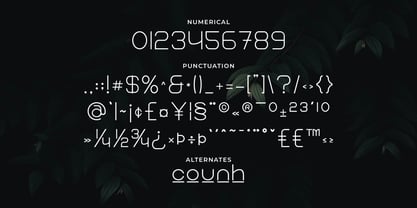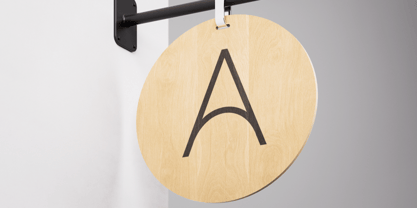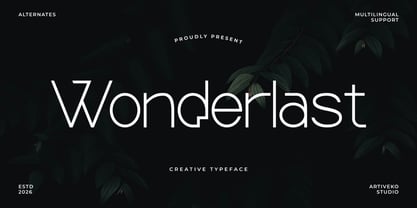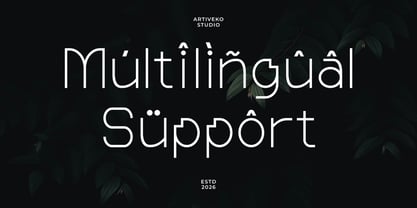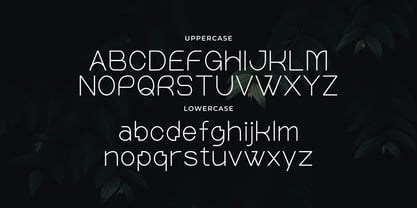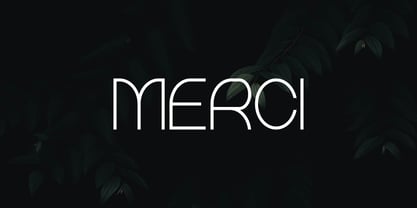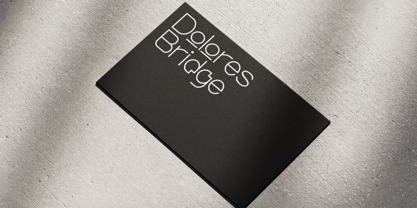
Wonderlast
La familia tipográfica Wonderlast fue diseñada por Iwan Alwan y publicada por Artiveko. Wonderlast contiene 2 estilos y opciones de paquete familiar. Más información sobre esta familia
Wonderlast is a striking display sans serif typeface crafted to inspire bold ideas and create unforgettable visual experiences. Featuring expressive letterforms, modern proportions, and a distinctive contemporary style, Wonderlast empowers designers to produce typography that feels fresh, energetic, and full of personality. Ideal for branding, logos, posters, packaging, merchandise, social media graphics, editorial layouts, and creative campaigns, Wonderlast offers a strong visual presence while ensuring excellent readability in display sizes. Its versatile character makes it perfect for lifestyle brands, creative agencies, fashion labels, cafés, music events, and modern digital content. Whether you're designing a memorable logo or eye-catching promotional materials, Wonderlast infuses originality, confidence, and creative energy into every project. Wonderlast isn't just a font—it's a bold creative companion for brands aiming to make a lasting impression.
Artiveko is a font design team based in Indonesia, comprised of several talented font designers who commenced their careers in the font design industry in 2020. With a dedicated focus on crafting fonts, the team members bring their collective expertise and passion to every project they undertake. Situated in Indonesia, Artiveko draws inspiration from the vibrant cultural landscape of the region, infusing their creations with unique flavors and aesthetics.The team's font collection encompasses a diverse range of styles, including serif, sans serif, handwritten, and script typefaces. Each typeface is meticulously crafted to meet the demands of modern design while offering versatility and functionality across various applications. Whether it's the classic elegance of serif fonts, the contemporary appeal of sans serif designs, the personal touch of handwritten scripts, or the expressive flourishes of script fonts, Artiveko ensures that every font reflects their dedication to quality and innovation.Artiveko's fonts have garnered recognition and acclaim, with their works being featured on prominent social media platforms like Creative Market. Through these platforms, the team has been able to connect with a global audience of designers and typographers, further amplifying their reach and influence in the industry. Their fonts are celebrated for their impeccable craftsmanship, attention to detail, and ability to elevate design projects with style and sophistication.As Artiveko continues to evolve and expand its font collection, the team remains committed to pushing the boundaries of typography and setting new standards of excellence. With a relentless focus on creativity, innovation, and collaboration, Artiveko strives to inspire and empower designers around the world with their distinctive and versatile font designs.